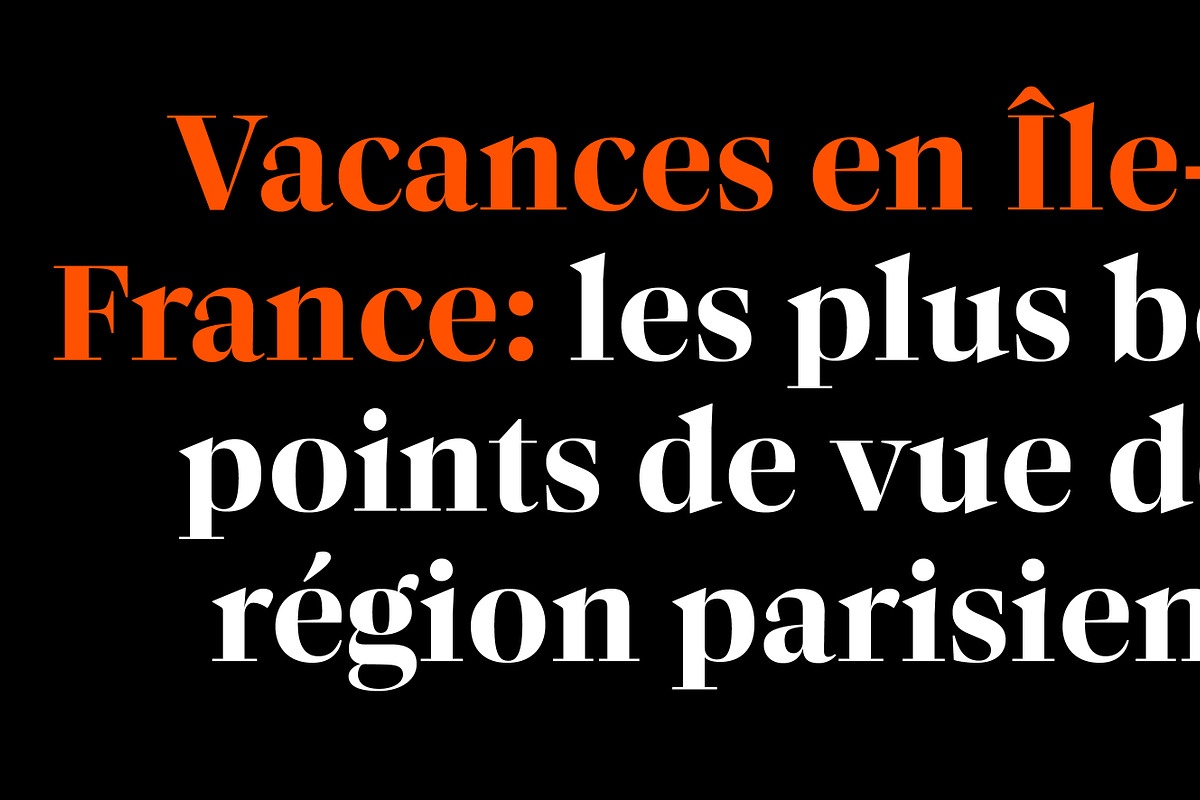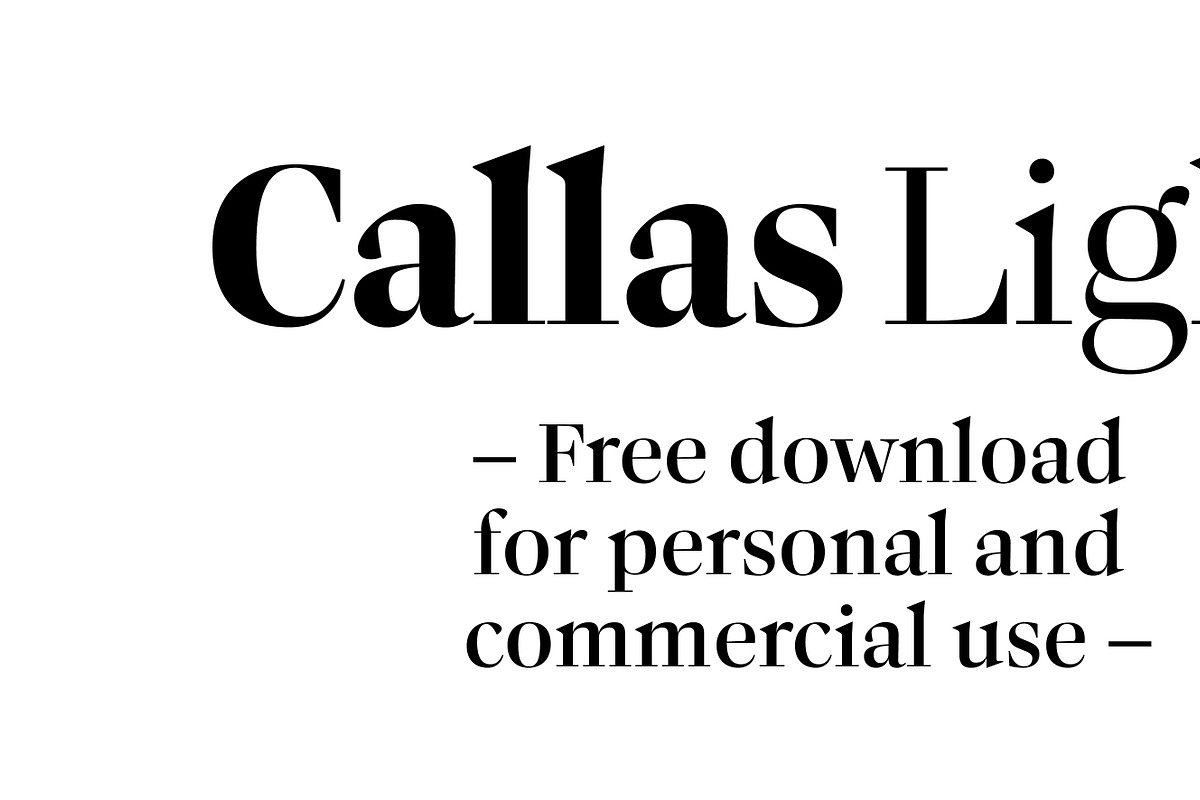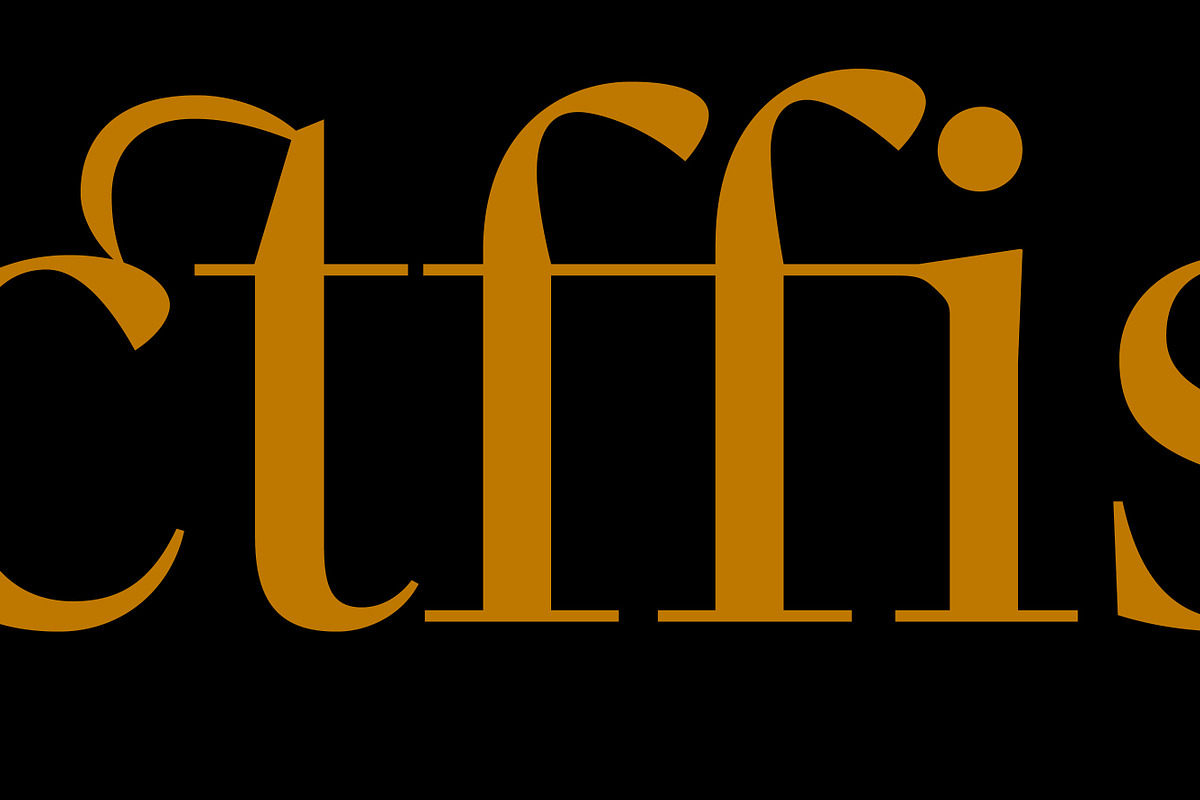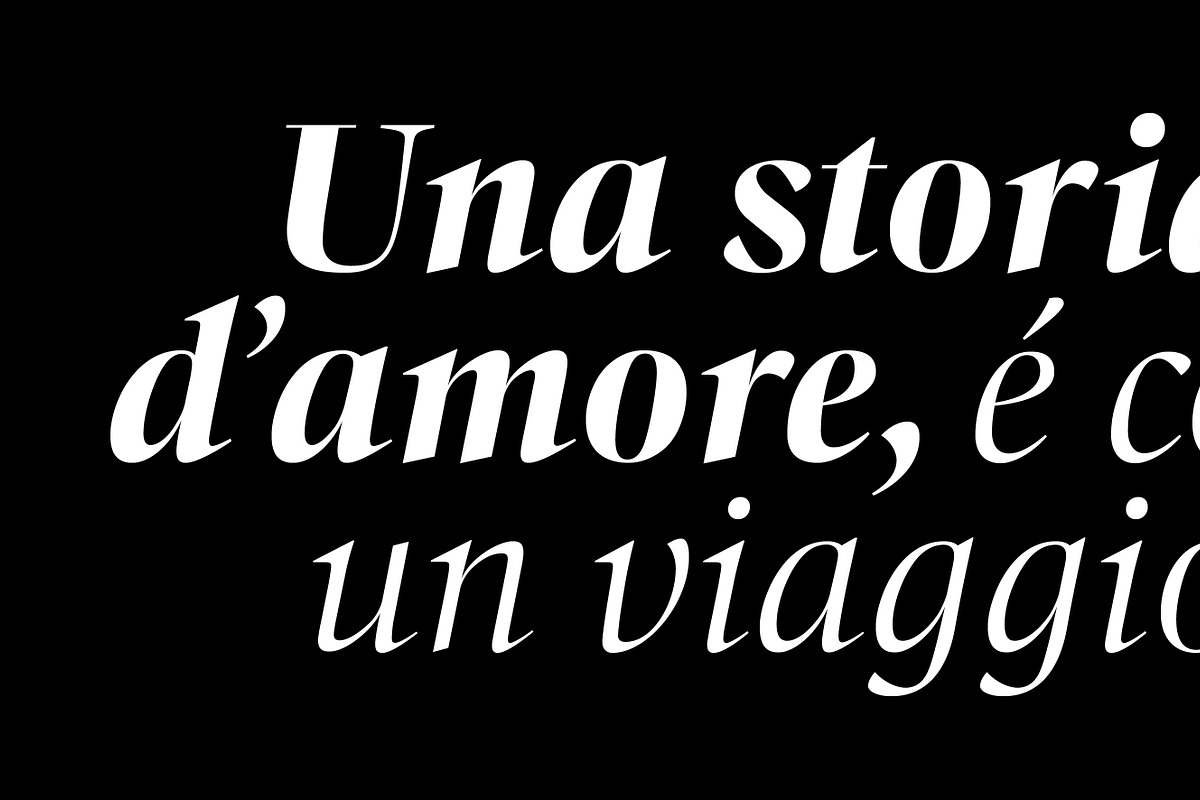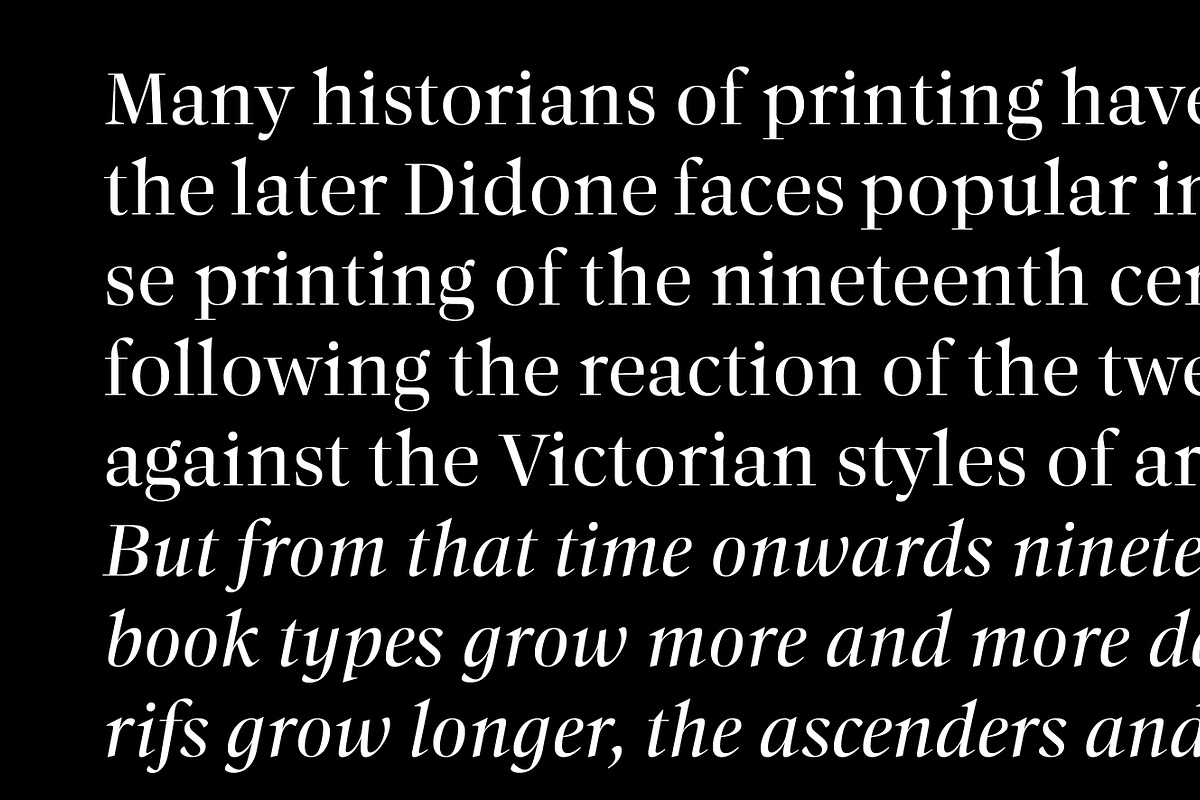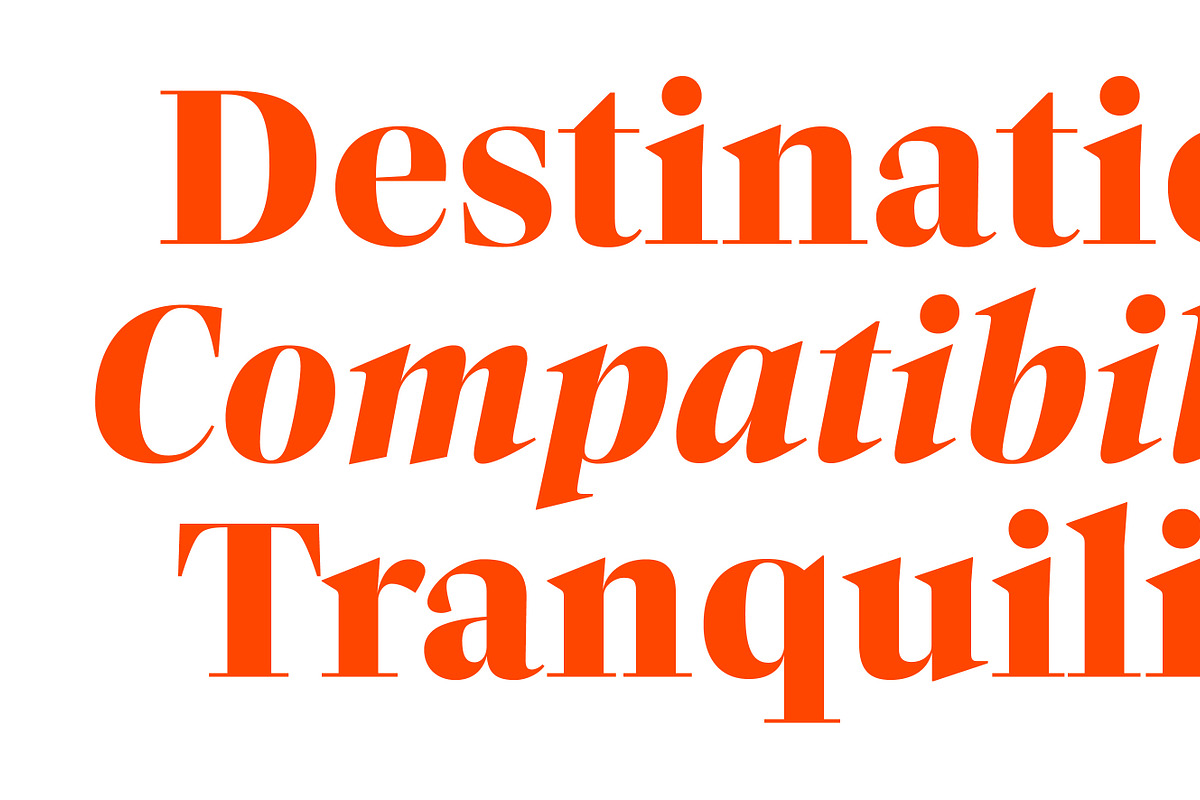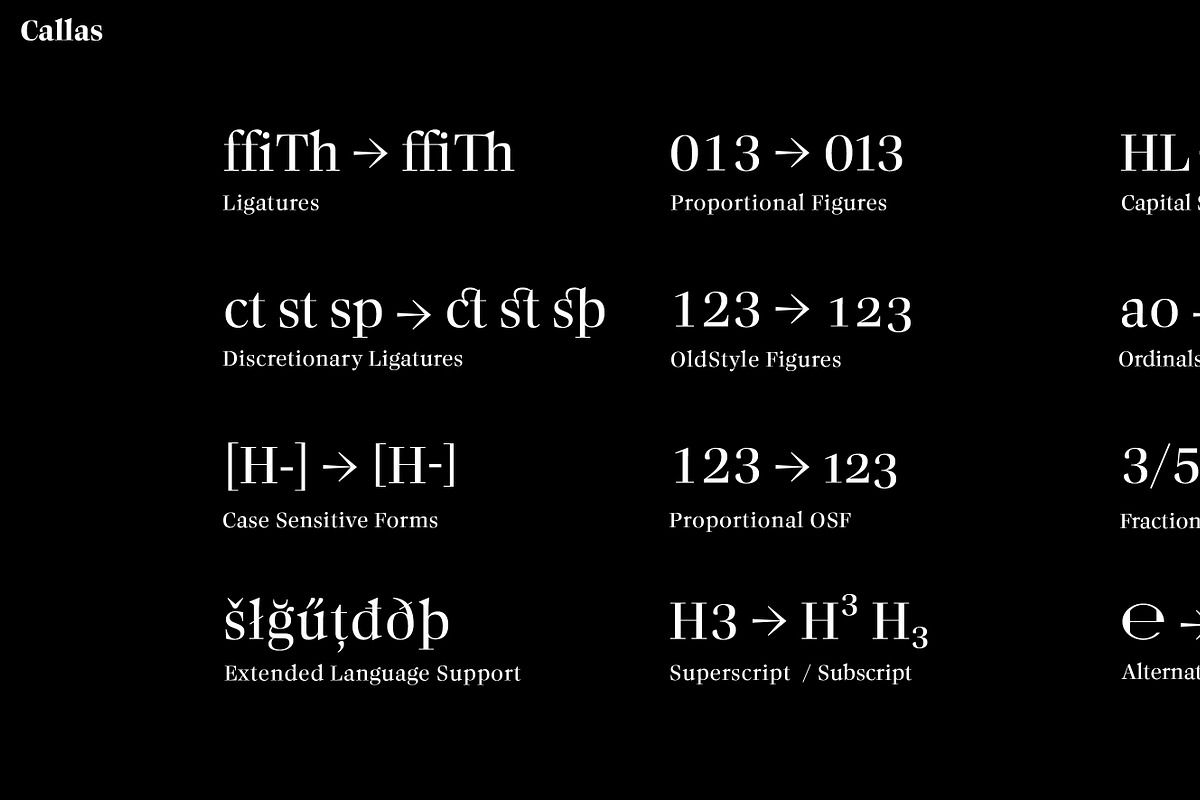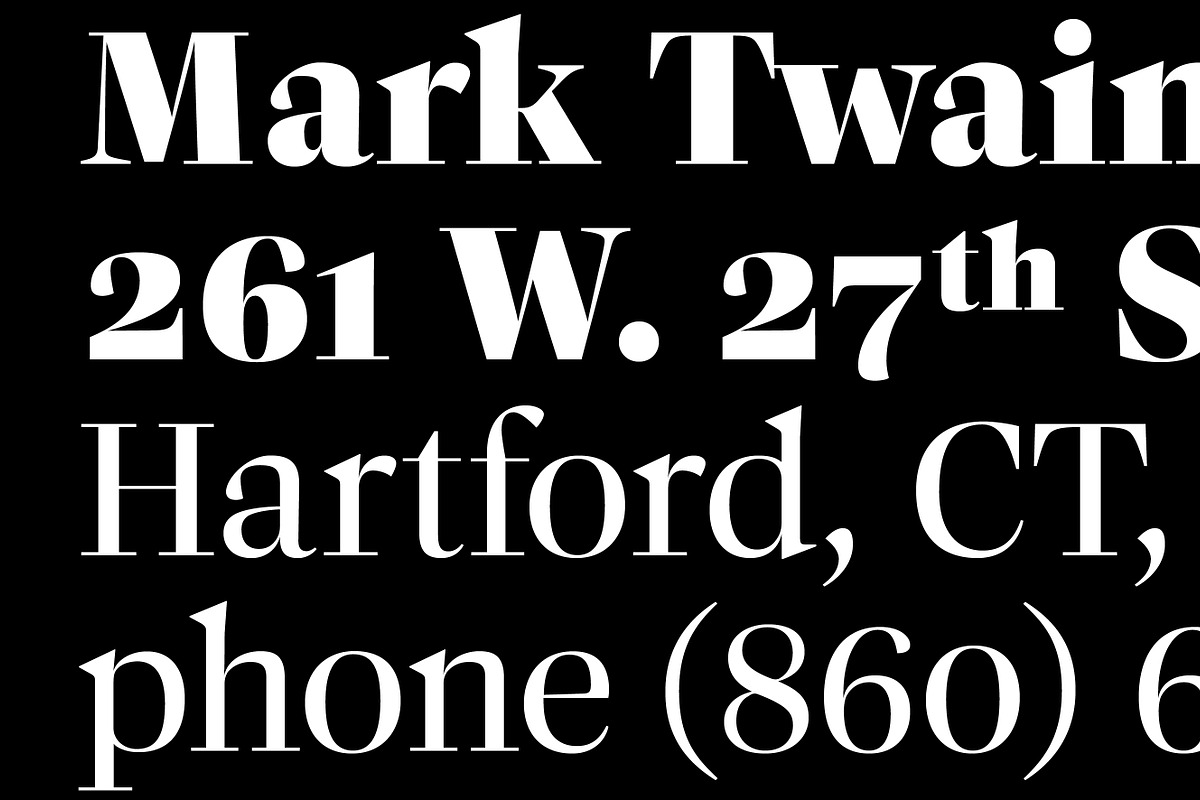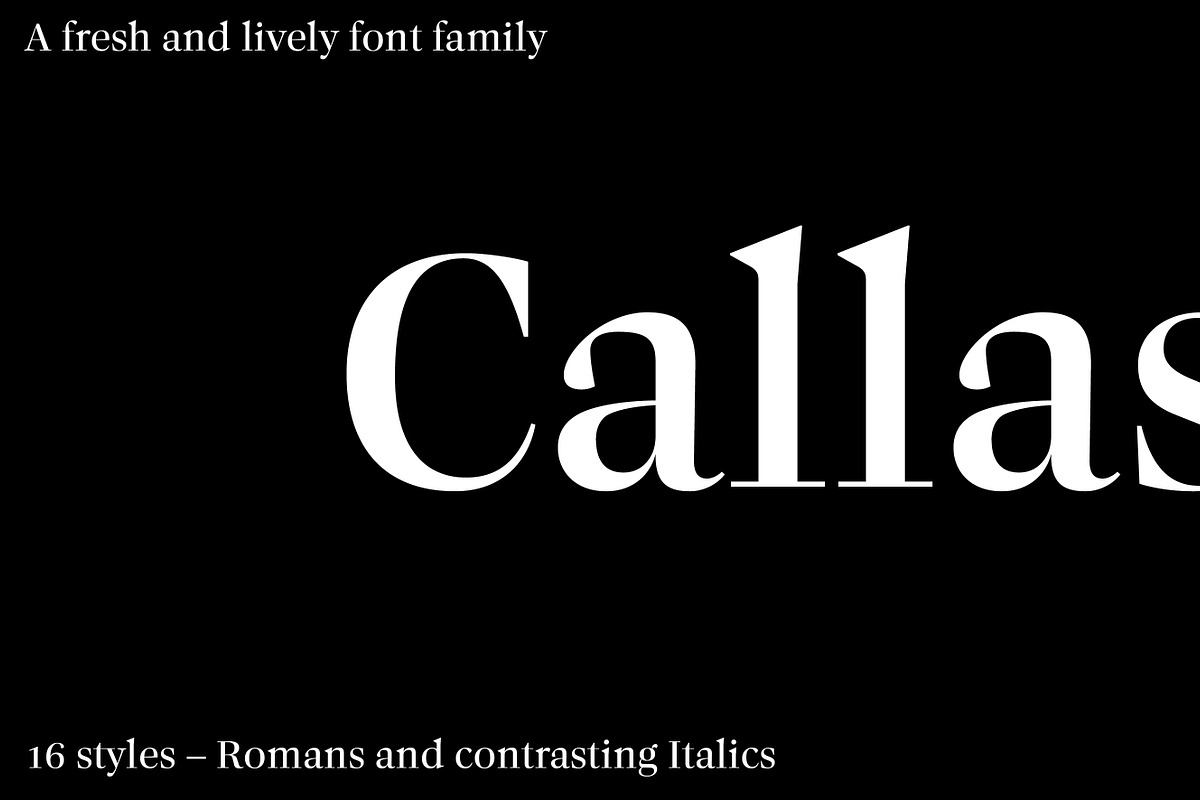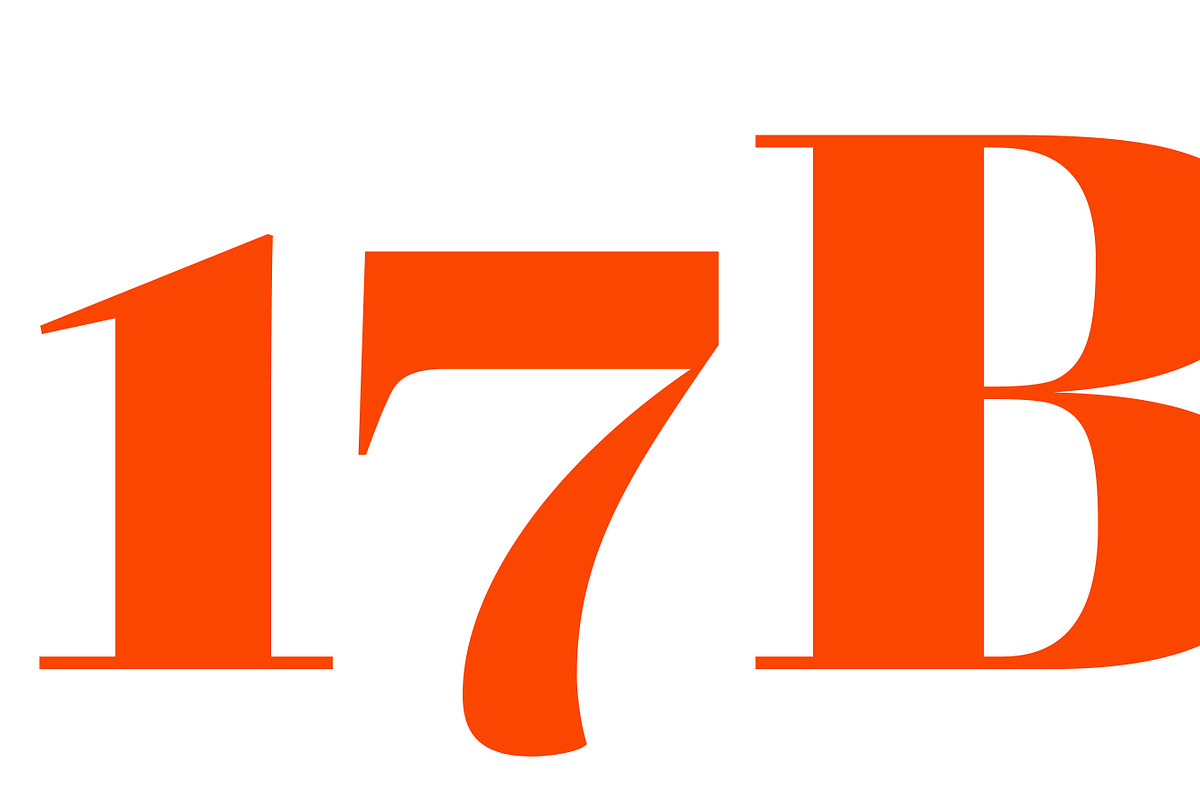
Callas
Callas is a modern serif typeface characterized by its high contrast between thick and thin strokes. It combines the functionality of classic Antiqua types with the elegance of didonesque styles, resulting in a distinguished and slightly extravagant appearance.